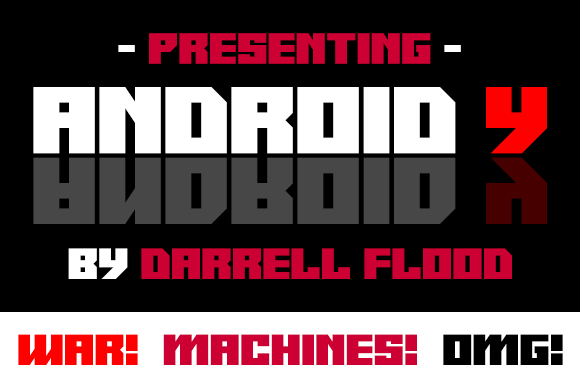
Get Ready to Blast Off with the Android Y Font
Have you ever stared at a blank page, waiting for inspiration to strike? It’s that moment when the ideas start flowing, and your creative juices start to run wild. For designers, it’s the spark that sets off a chain reaction of innovative thinking and bold ideas. And for sci-fi fans, it’s the perfect catalyst to bring their futuristic worlds to life.
Enter the Android Y Font, a cutting-edge, angular font that’s out of this world. With its cool square style, this font is the perfect companion for any sci-fi adventure or alien invasion. Whether you’re designing a futuristic game, a cyberpunk novel, or a retro-futuristic movie poster, the Android Y Font is the ultimate tool to help you create a visually stunning and immersive experience.
As a designer, you know that the right font can make all the difference. That’s why the Android Y Font is a valuable addition to your toolkit. Its versatility and modern style make it an excellent choice for a wide range of projects, from graphic design to typography. So why not give it a try and see how it can elevate your designs to new heights?
Key Features of Android Y Font
- Unique Characteristics: This font features a clean, modern design with a high x-height, making it ideal for digital displays and mobile devices.
Android Y Font Review
As a designer, I’ve had the chance to work with a variety of fonts, and my experience with Android Y Font has been… interesting.
- Unique Design: Android Y Font has a distinctive, futuristic feel that sets it apart from more traditional fonts.
- Legibility: Despite its unusual design, the font is surprisingly easy to read, even at smaller sizes.
- Context Dependence: The font’s unusual design can make it difficult to read in certain contexts, such as body text or small sizes.
- Lack of Variations: Android Y Font is available in a limited range of styles and weights, which can limit its versatility.
- Distraction: The font’s futuristic feel can sometimes come across as gimmicky or attention-seeking, rather than elegant or sophisticated.
Overall, I’d say that Android Y Font is a solid choice for designers looking to add some visual interest to their projects. However, it’s not a font for everyone – and it’s definitely not suitable for every project. With some careful consideration and context, Android Y Font can be a great addition to your design toolkit.
Some common use cases for Android Y Font include:
- Mobile app design: Android Y Font is a popular choice for mobile app design due to its clean and modern look.
- Branding: Android Y Font can be used to create a consistent brand identity across various platforms.
- Digital signage: Android Y Font is suitable for digital signage due to its clear and readable design.